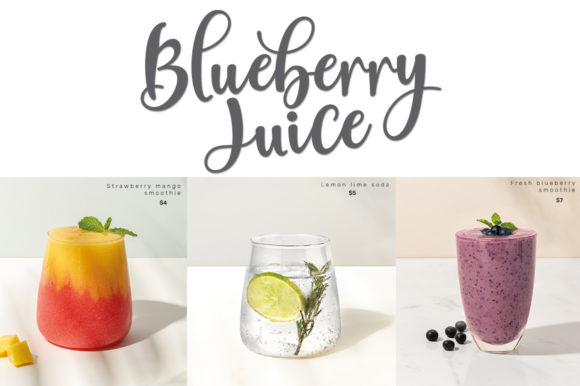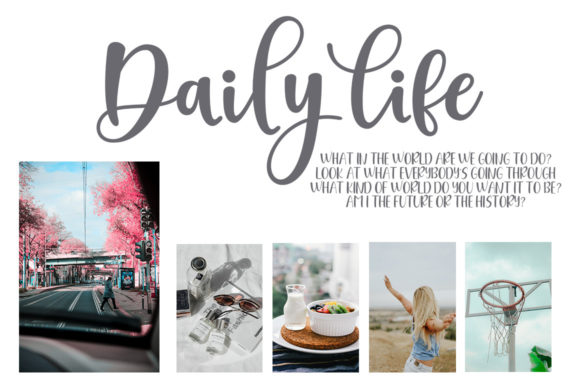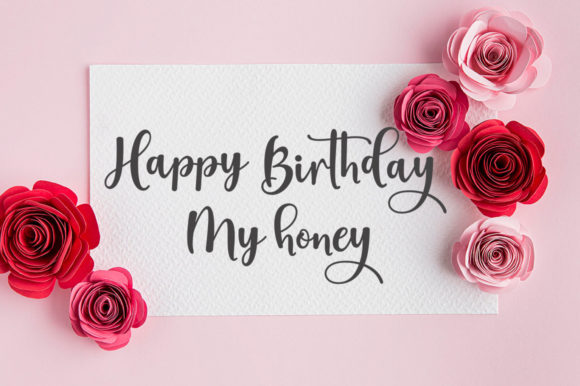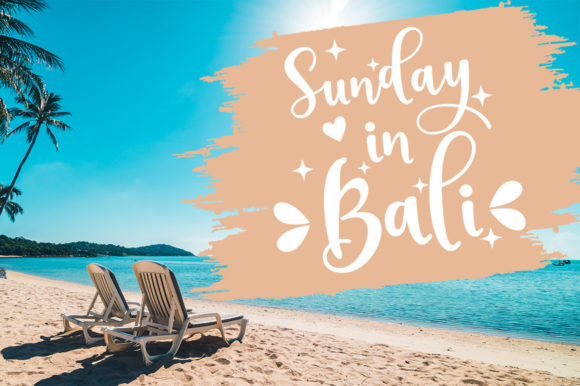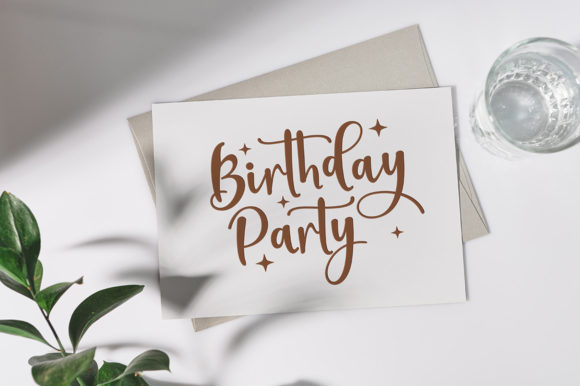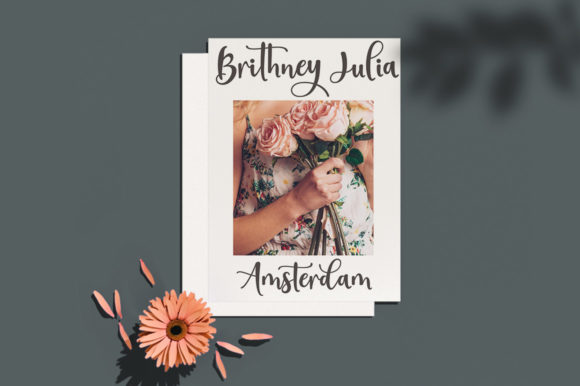
Introducing Breathing Austria Duo Font: Elevate Your Designs with Elegance and Versatility
In the realm of typography, a font can make or break the aesthetic and overall feel of a project. For designers and crafters seeking that perfect blend of elegance and approachability, the Breathing Austria Duo Font emerges as a game-changer. This comprehensive duo font, consisting of a beautiful script and a clean sans serif, is meticulously designed to infuse your projects with a branded yet friendly vibe.
The Perfect Pair: Script and Sans Serif
The Breathing Austria Duo Font package includes two distinct yet complementary styles, allowing for a wide range of creative possibilities. The script font exudes elegance and sophistication, perfect for adding a touch of luxury and personality to your designs. On the other hand, the sans serif font offers a modern, clean look that ensures clarity and readability. Whether you’re working on a branding project, a wedding invitation, or a digital platform, this duo font can adapt to your needs seamlessly.
One of the standout features of the Breathing Austria Duo Font is its versatility. The two styles can be used together in harmony, creating a visually appealing contrast that captures attention. However, each font is also stunning on its own, allowing for a consistent look across your project. This flexibility makes it an ideal choice for various applications, from professional branding to personal crafting projects.
Key Features of Breathing Austria Duo Font
- Comprehensive Duo Set: Includes a script font and a sans serif font, offering a wide range of design possibilities.
- Elegant and Friendly: Achieves a perfect balance between sophistication and approachability, suitable for a variety of projects.
- High Versatility: Can be used together for contrast or separately for consistency, adapting to your design needs.
- Branded Feel: Ideal for projects requiring a professional yet welcoming aesthetic.
Who Can Benefit from Breathing Austria Duo Font?
This versatile font duo is perfect for a broad spectrum of users:
- Graphic Designers: Looking for a font that can add a professional touch to their work.
- Branding Specialists: Seeking to create a memorable brand identity.
- Crafters and Makers: Needing a beautiful font for their DIY projects, such as handmade cards or craft fairs.
- Digital Content Creators: Aiming to enhance the visual appeal of their blogs, websites, or social media.
Tips for Using Breathing Austria Duo Font
To maximize the potential of the Breathing Austria Duo Font, consider the following tips:
- Mix and Match: Combine the script and sans serif fonts to create visual interest.
- Play with Sizes: Use different font sizes to highlight key information or add hierarchy to your design.
- Experiment with Colors: While the font itself is versatile, experimenting with colors can further enhance its appeal.
The Breathing Austria Duo Font is a powerful tool for anyone looking to elevate their designs with a touch of elegance and a whole lot of versatility. Whether you’re a seasoned designer or a crafting enthusiast, this duo font offers the perfect blend of sophistication and friendliness. By incorporating the Breathing Austria Duo Font into your projects, you’re not just choosing a font; you’re setting the tone for a memorable and engaging experience.
So why settle for ordinary when you can make your projects extraordinary with the Breathing Austria Duo Font? Dive into the world of limitless creative possibilities and let your designs breathe with elegance and style.